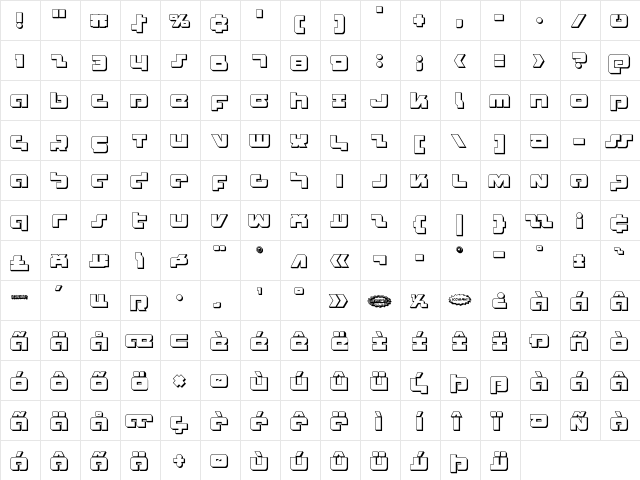
Boomstick 3D Regular
Design Context for Boomstick 3D Typeface
Boomstick 3D is a composed and adaptable typeface that performs quietly and consistently across a wide range of design contexts.